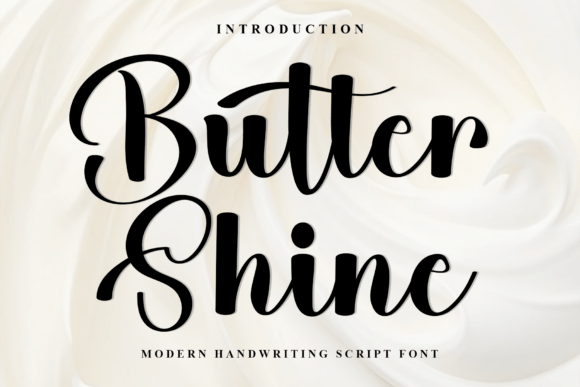
The Magic of Butter Shine Font: Elevate Your Holiday Designs
I still remember the year I was tasked with creating a festive holiday card for a client’s family gathering. I spent hours browsing through font libraries, searching for the perfect typeface that would capture the warmth and cheer of the season. That’s when I stumbled upon Butter Shine Font, a delightful and whimsical font that instantly transported me to a winter wonderland. In this article, I’ll share my experience with Butter Shine Font, its features, and how to make the most of it in your designs.
An Honest Review of Butter Shine Font
- 🎉 Festive and merry vibe that’s perfect for holiday designs
- ✅ Decorative elements and whimsical flair that add a touch of enchantment
- 📚 Suitable for various design projects, including greeting cards, gift tags, and holiday-themed projects
While Butter Shine Font is a delightful addition to any design project, there are a few things to keep in mind:
- 🤔 Limited use outside of holiday-themed projects, as its festive vibe might not fit other design contexts
The Backstory of Butter Shine Font
Butter Shine Font was designed by a team of creatives who wanted to capture the magic of the holiday season in a typeface. Inspired by vintage holiday cards and festive decorations, they crafted a font that’s both whimsical and elegant. The result is a font that’s perfect for adding a touch of enchantment to your holiday designs.
Q: Is Butter Shine Font suitable for body text or long-form content?
A: While Butter Shine Font is a beautiful and festive typeface, it’s best suited for display text, headings, or short-form content. Its decorative elements and whimsical features might not be ideal for body text or long-form content.